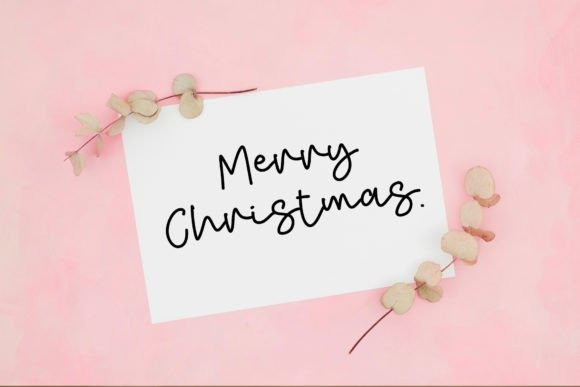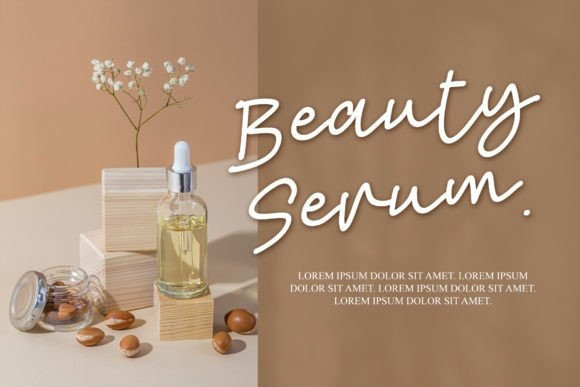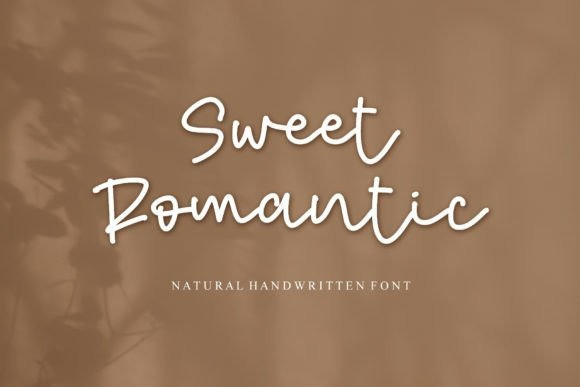
Sweet Romantic Handwriting Font
Sweet Romantic Handwriting Font is a simple, thin lettered, and flowing handwritten font. This adaptable font will look great on a variety of design ideas. It will add a fun and friendly touch to each of your projects!